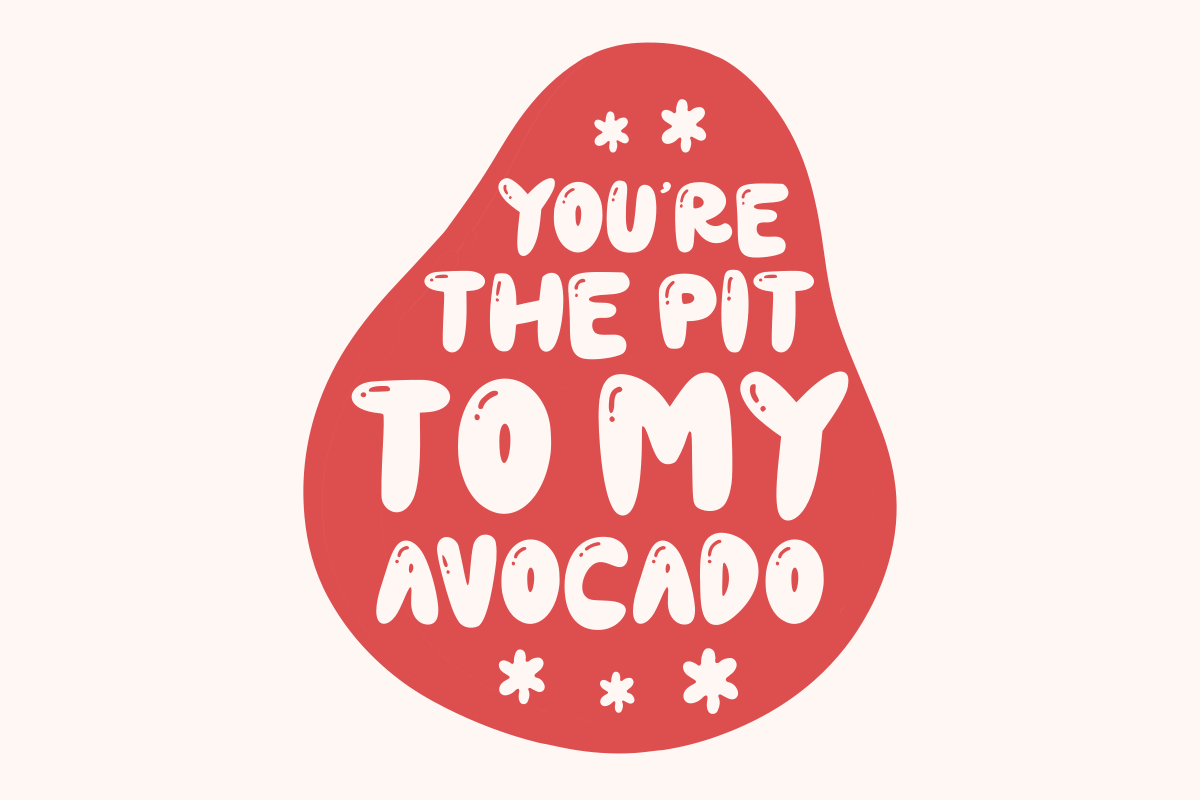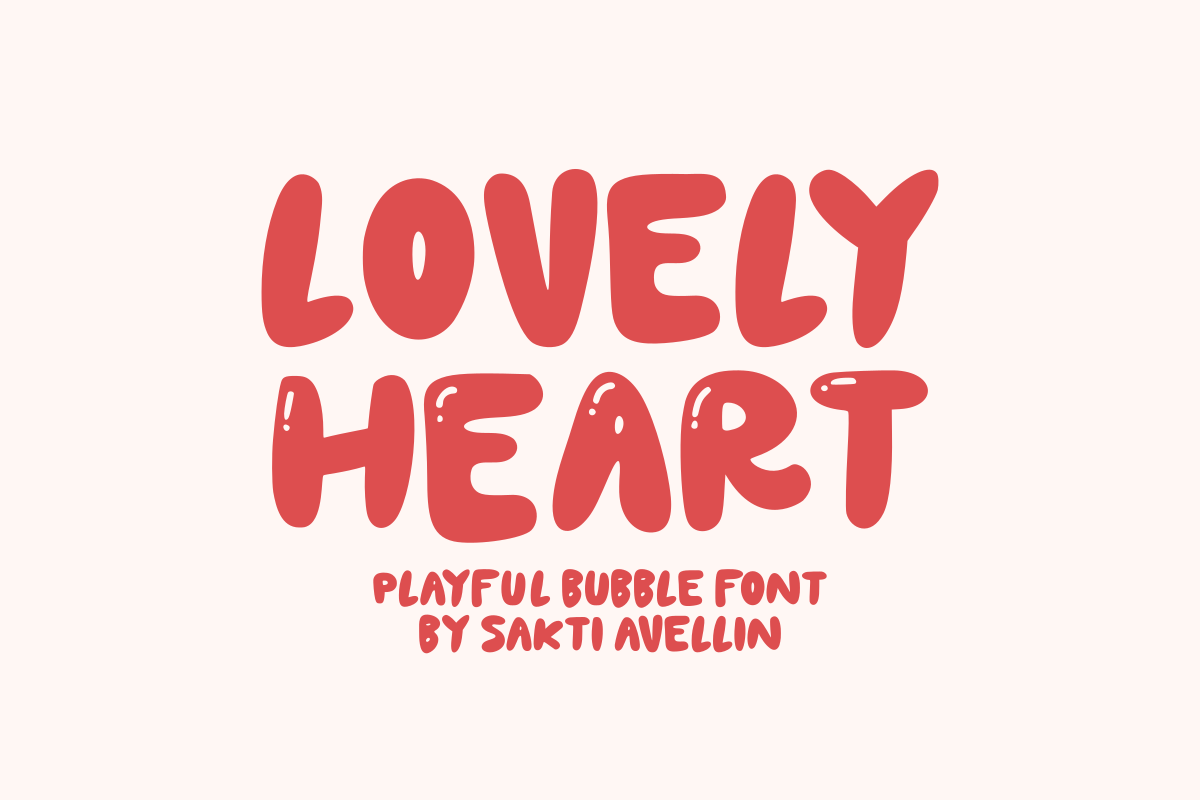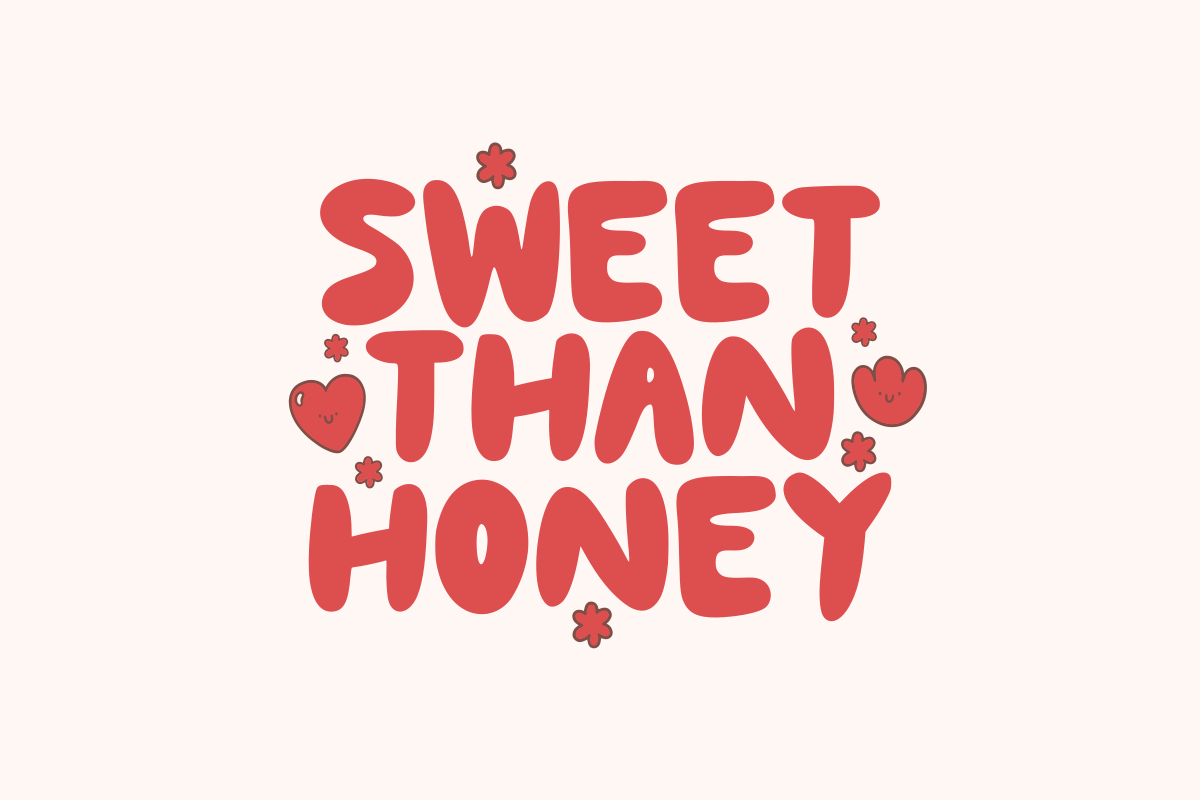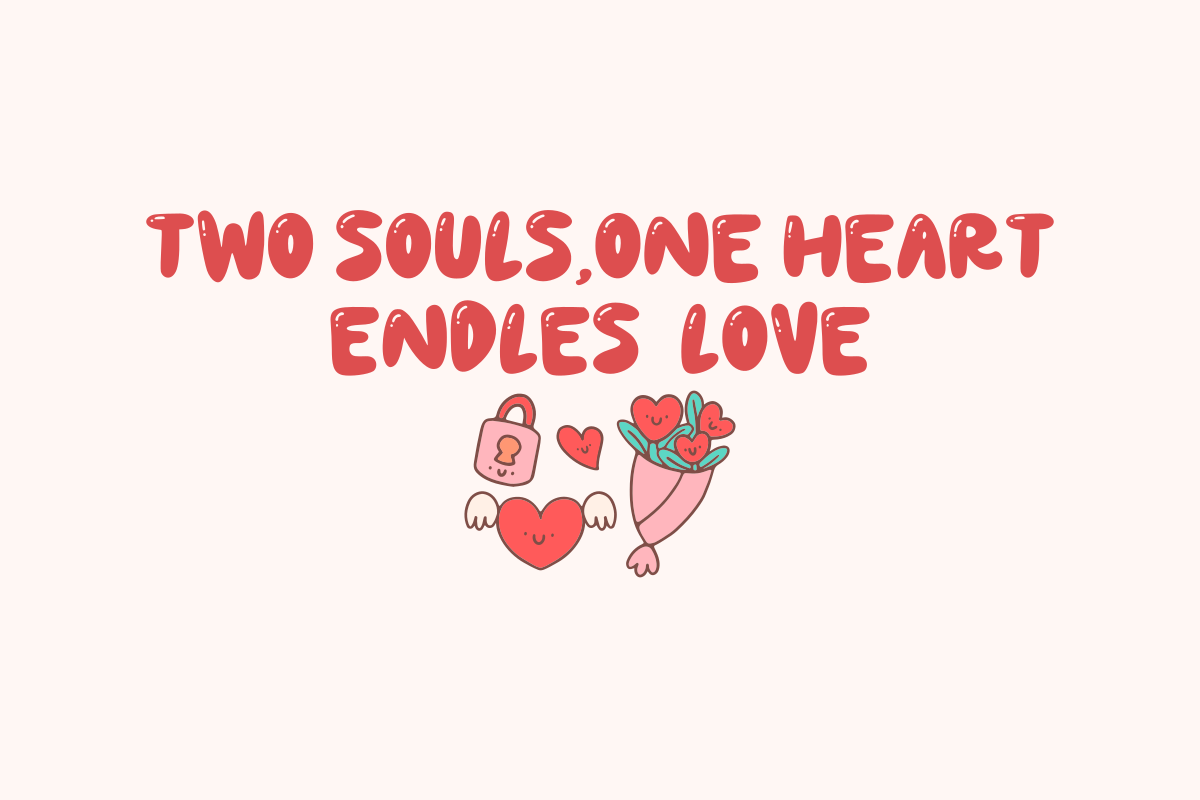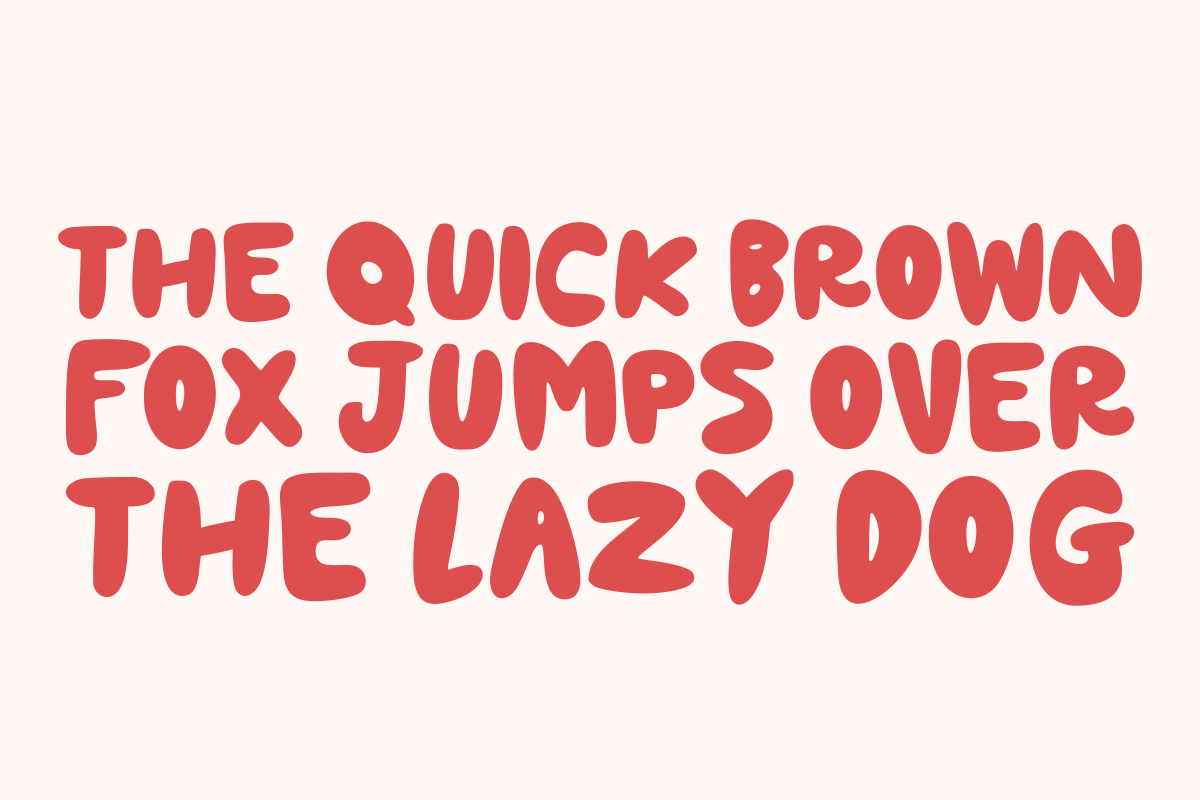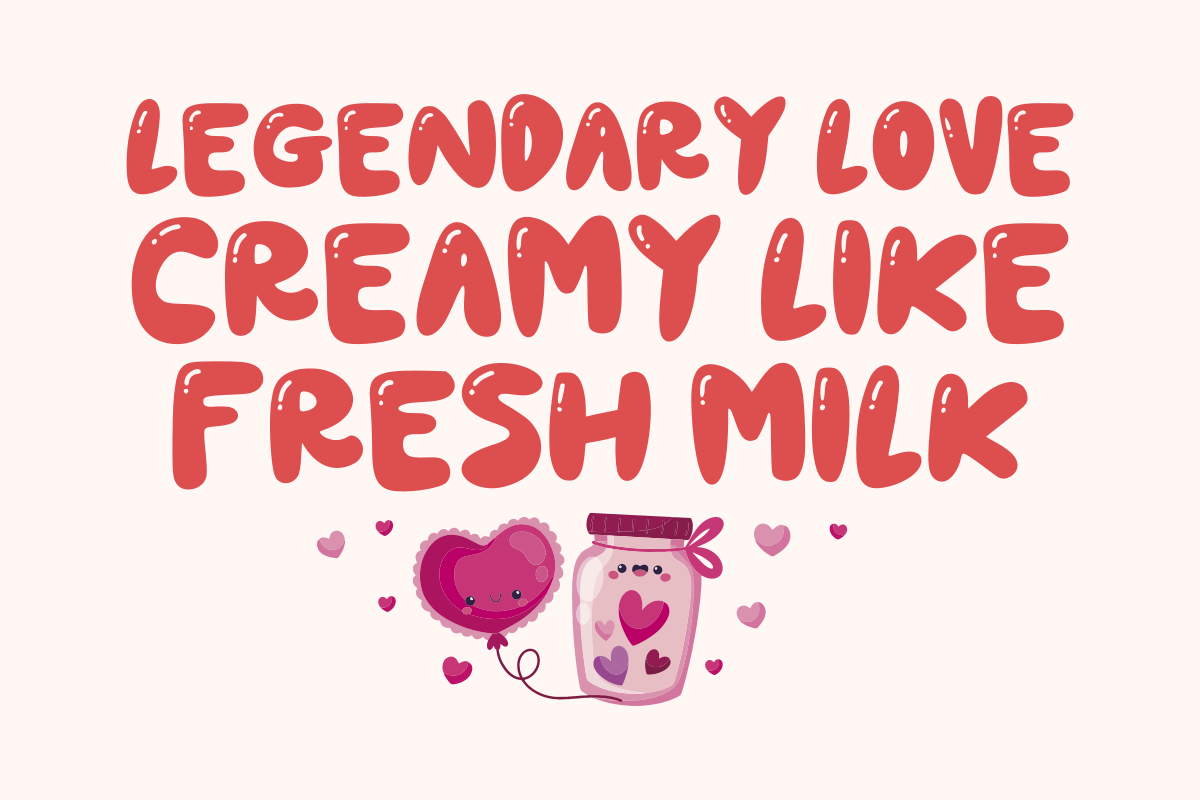
Lovely Heart - Playful Bubble Font
Lovely Heart is a sweet and playful bubble font designed to bring a bouncy, cheerful energy to your creative projects. This hand-drawn display typeface features thick, rounded letterforms with glossy highlights, making it an essential choice for romantic branding, cute stickers, Valentine's Day designs, and vibrant social media graphics. Its soft, organic silhouette and bubbly rhythm ensure your headlines pop with a friendly and modern handcrafted charm. Whether you are designing for kids' apparel, whimsical greeting cards, or bold product packaging, Lovely Heart adds a lovely and spirited twist to every design.